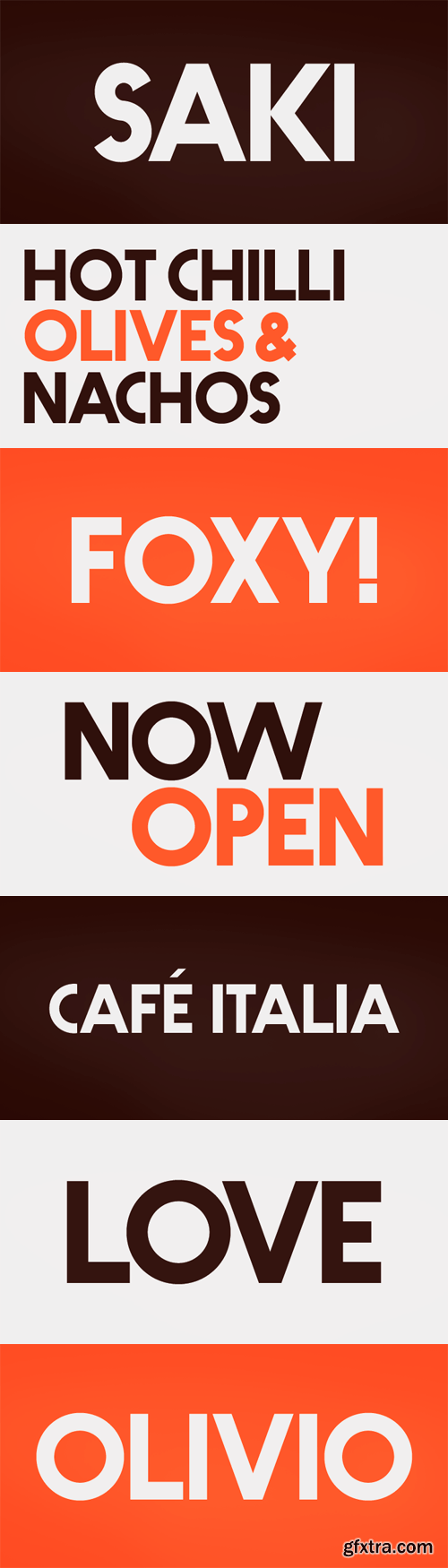
- Saki is an expanded expansion on our Ebisu family. Tweaking, pulling and playing with 5 letterforms from Ebisu, Saki initially took on a very clear and simplified style. Saki is a no strings sans-serif with a slight expanded feel. The intended use for Saki is for very clear and legible headlines.